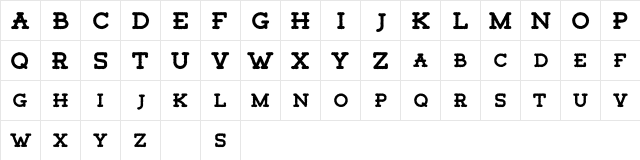
Tigreal Free Rough Regular
| Foundry | Craft Supply Co |
Design Context for Tigreal Free Rough Typeface
Tigreal Free Rough trades polish for personality, using distressed and eroded forms to bring grit and attitude to creative work.
Suited to punk-influenced zines, underground music branding, streetwear, and raw, anti-corporate design.
Pro Tip: Pair Tigreal Free Rough with intentionally raw or lo-fi design elements. Fighting against it with overly polished surroundings will undermine its personality.